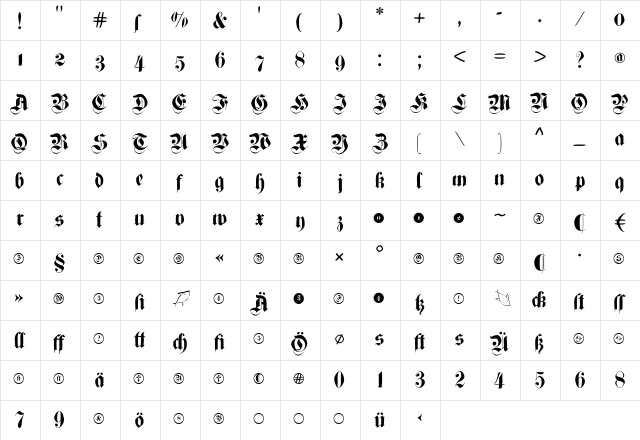
CuxhavenTimes Regular
Design Context for CuxhavenTimes Typeface
CuxhavenTimes takes a measured approach to typography — its balanced proportions and neutral character make it a reliable workhorse for both digital and print work.